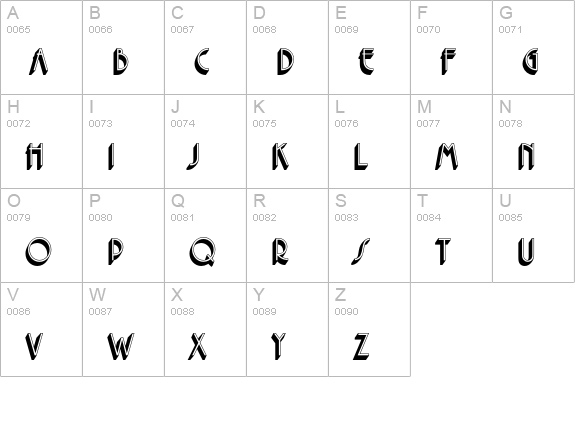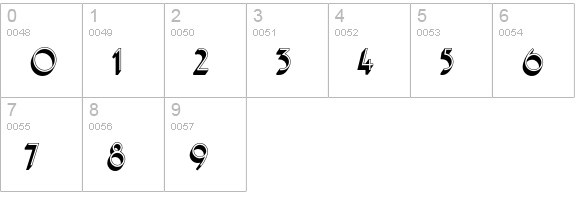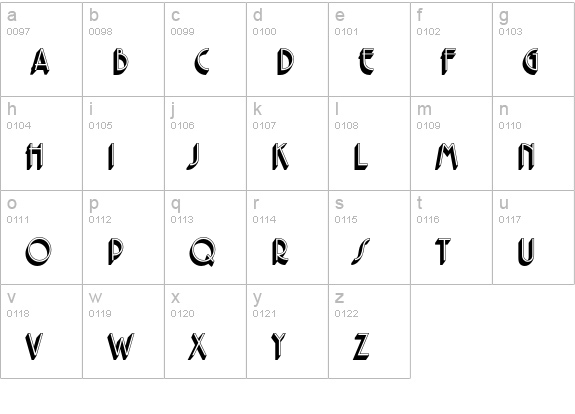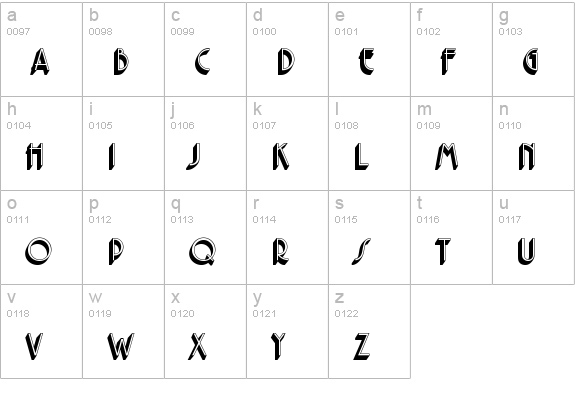
PremierEF-Shaded Font Details
PremierEF-Shaded font is a stunning display typeface that exudes elegance and sophistication. Its intricate design features beautiful shading and intricate details that make it perfect for adding a touch of luxury to your projects. Whether you're designing a logo, poster, or invitation, PremierEF-Shaded font is sure to make a statement. And the best part? This exquisite font is available for free download at FontsMarket.com. So you can easily add a touch of glamour to your designs without breaking the bank. Don't miss out on the opportunity to elevate your projects with PremierEF-Shaded font - download it today and start creating beautiful and captivating designs!